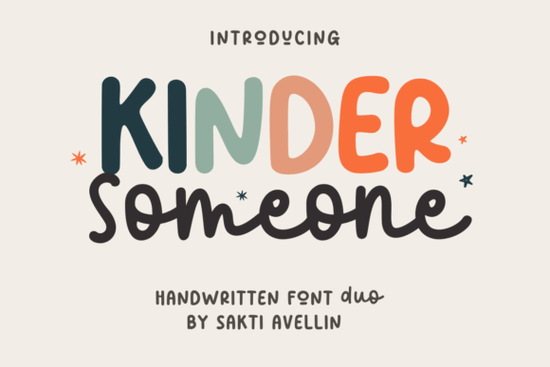
Looking for a font that adds a personal touch to your designs? The Kinder Someone Duo Font is a great choice for anyone who wants to bring a warm, handwritten feel to their projects. This duo of fonts combines a display style with a script version, making it perfect for a wide range of creative applications. Whether you're working on t-shirts, greeting cards, or packaging, this font can help make your work stand out.
The Kinder Someone Duo Font is ideal for designers and crafters who want to add a unique flair to their work. Its playful yet elegant style makes it suitable for everything from birthday invitations to wedding stationery. The font’s versatility means it can be used in both casual and formal settings, depending on the project. If you're looking for something that feels personal and expressive, this font is worth considering.
For those who enjoy working with handmade elements, the Kinder Someone Duo Font offers a fresh alternative to more traditional typefaces. It brings a sense of warmth and authenticity to any design, making it a favorite among small businesses and print-on-demand sellers. The font's ability to blend cuteness with sophistication makes it a popular choice for creating memorable gifts and personalized items.
What Makes Kinder Someone Unique?
The Kinder Someone Duo Font stands out because of its combination of a bold display style and a flowing script. This allows for greater flexibility when designing. You can use the display version for headlines and titles, while the script version works well for body text or quotes. The two styles complement each other, giving your designs a cohesive and professional look.
One of the key benefits of this font is its ability to add a personal touch without being too overwhelming. It's not too ornate, but it still has enough character to make your work feel special. This makes it an excellent choice for anyone who wants to create something that feels handcrafted, even if it's done digitally.
Best Uses for Kinder Someone Duo Font
This font is particularly useful for creating greeting cards, where a handwritten feel can make a big difference. It also works well for packaging, especially for products aimed at children or those with a nostalgic appeal. The script version is great for adding quotes or short phrases to mugs, t-shirts, and other printed items.
For small businesses, the Kinder Someone Duo Font can help create a brand identity that feels friendly and approachable. It's perfect for logos, social media posts, and marketing materials. If you're running a print-on-demand business, using this font can help your products stand out in a crowded marketplace.
Another great use for this font is in event planning. Whether it's for a wedding, birthday party, or corporate event, the font can add a special touch to invitations, banners, and signage. Its versatility makes it a valuable addition to any designer's toolkit.
Whether you're a designer, crafter, or small business owner, the Kinder Someone Duo Font can help you create more engaging and personalized work. Its unique blend of style and functionality makes it a valuable tool for anyone involved in creative projects. With the right font, your designs can feel more authentic and meaningful.